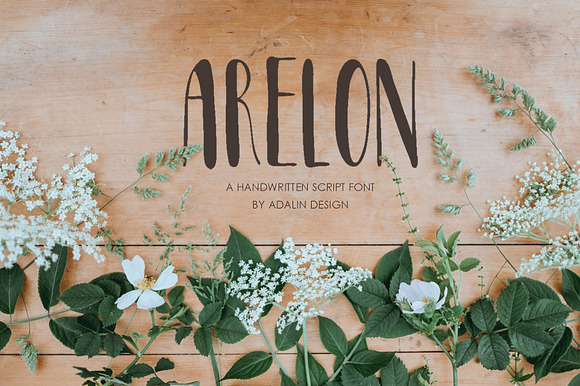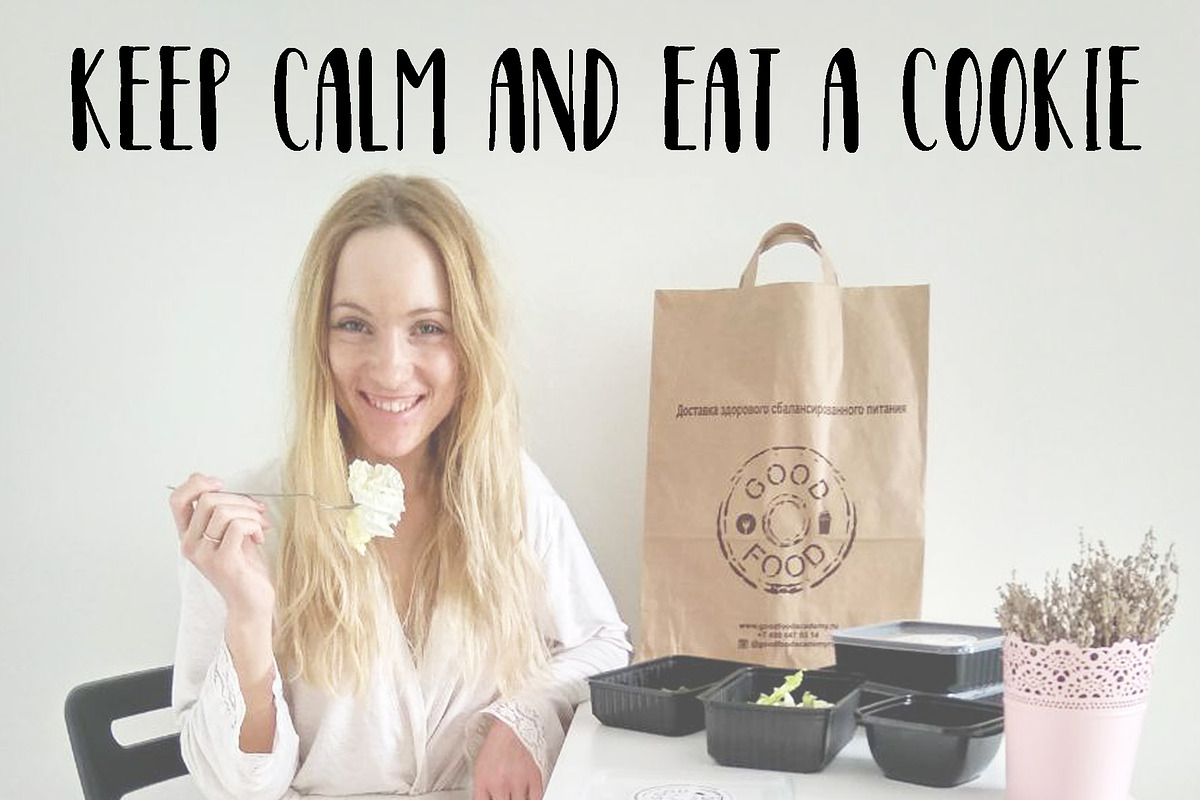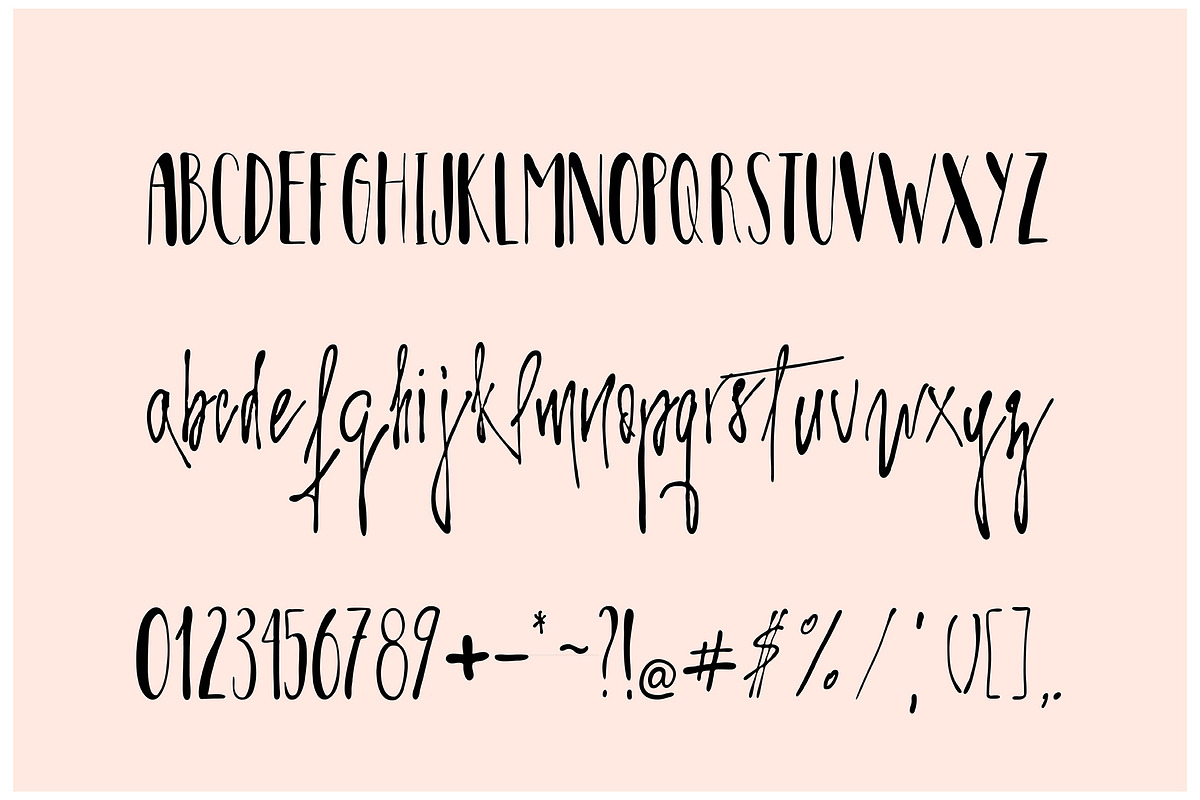
Arelon Handwritten Font
Arelon Handwritten Font is a unique, classy and modern handwriting font. The handmade style makes it ideal for use in all your project projects: be it logos, signatures, labels, package design, blog headings. Using Arelon will definitely make your text effects.
- The handmade style makes it ideal for use in all your project projects: be it logos, signatures, labels, package design, blog headings.
- Arelon comes with basic and lowercase characters, numbers, signs and punctuation.
- The handmade style makes it ideal for use in all your project projects: be it logos, signatures, labels, package design, blog headings.
- Arelon comes with basic and lowercase characters, numbers, signs and punctuation.
Why Arelon Handwritten Font is worth a look
Arelon Handwritten Font by Adalin fits naturally into Branding, posters, packaging, typography.